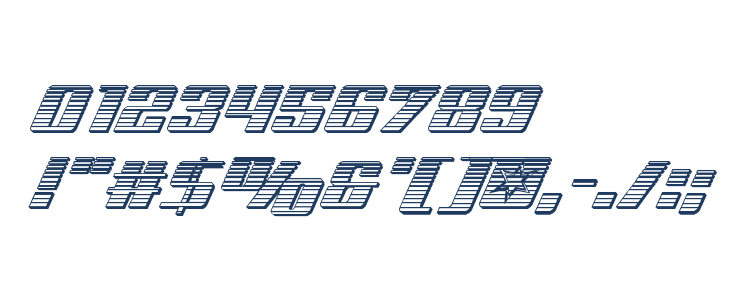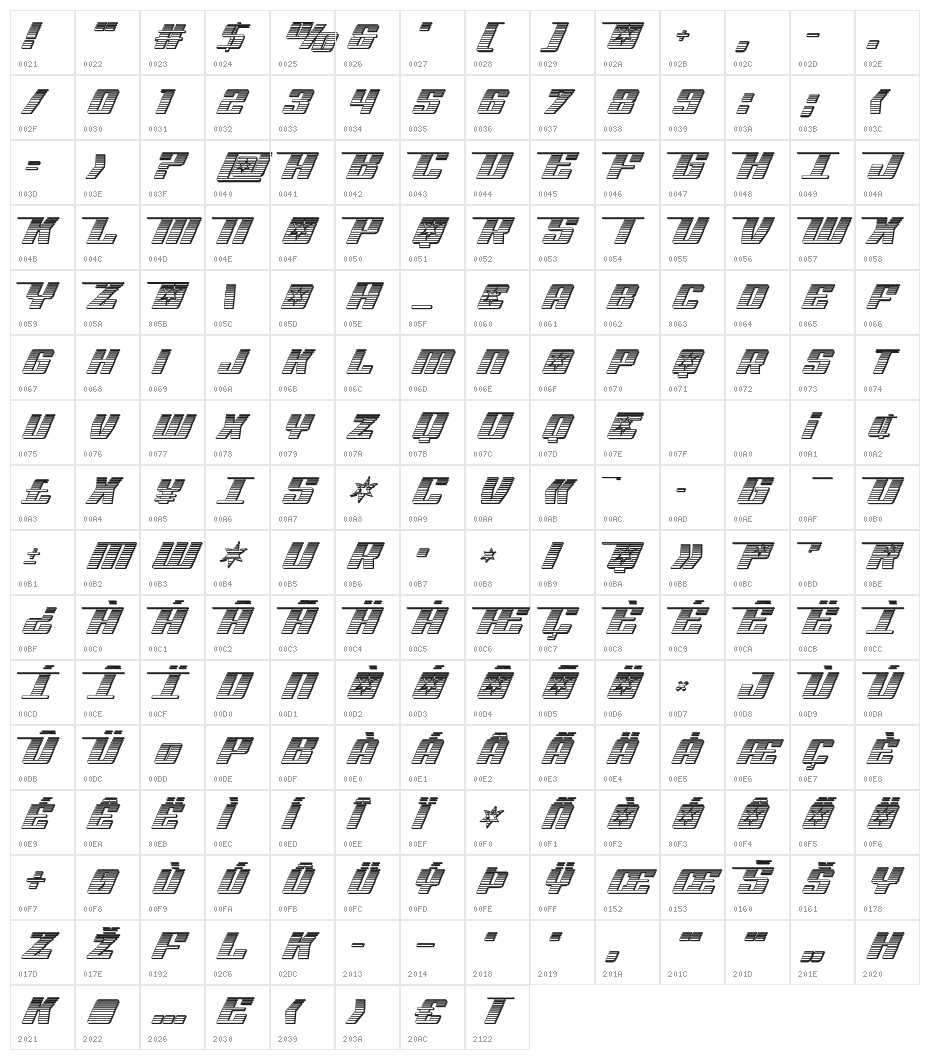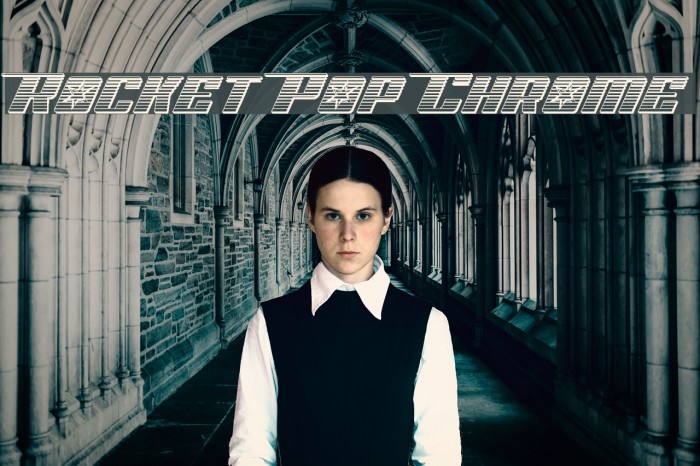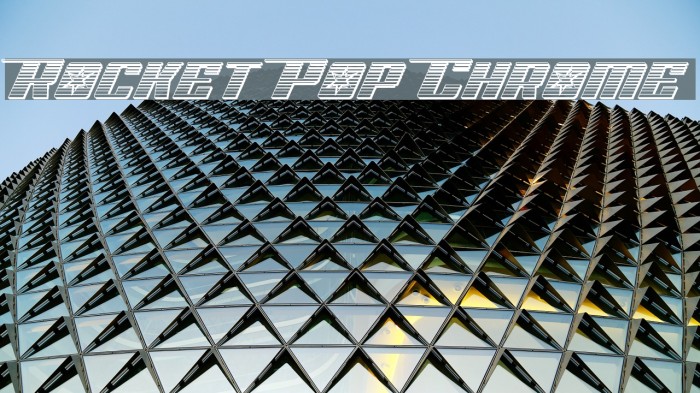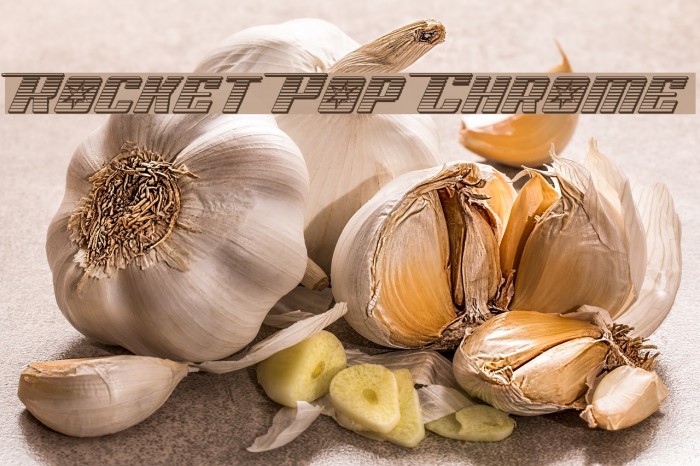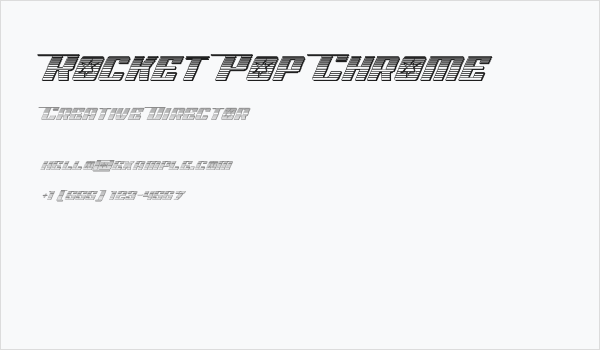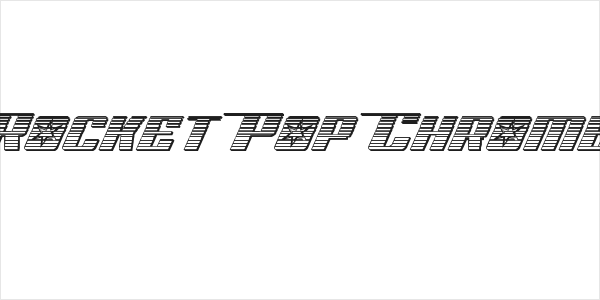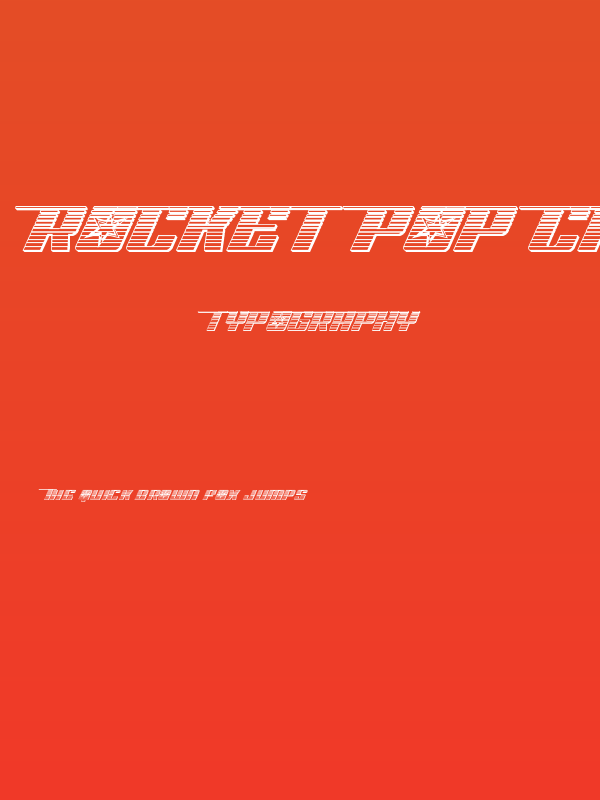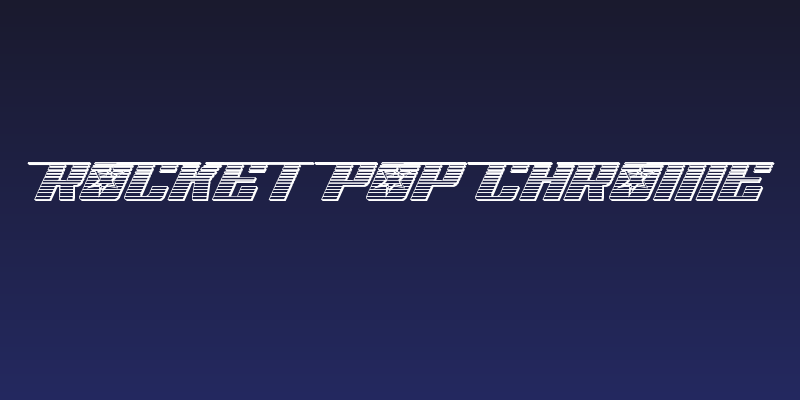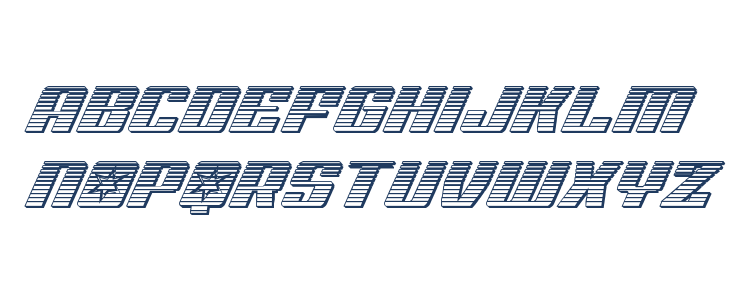
Rocket Pop Chrome Font
Rocket Pop Chrome Description
This font features a bold, futuristic design with a distinct striped pattern running through each character, giving it a dynamic and energetic appearance. The uppercase and lowercase letters maintain a consistent style, with angular edges and a slightly condensed form. The numbers and special characters are designed to match the overall aesthetic, ensuring a cohesive look across all elements. The font's unique style makes it stand out, ideal for projects that require a modern and eye-catching typeface.